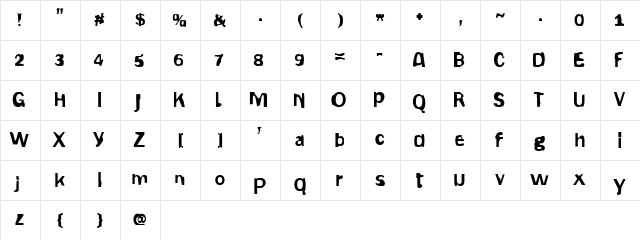
Gepetto Regular
Design Context for Gepetto Typeface
Gepetto is a composed and adaptable typeface that performs quietly and consistently across a wide range of design contexts.